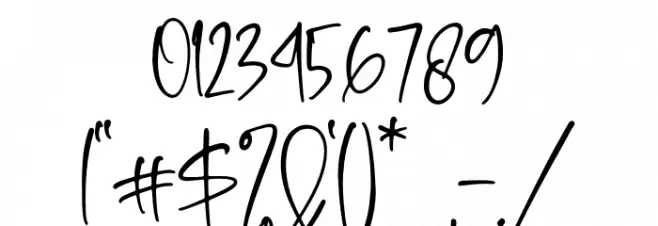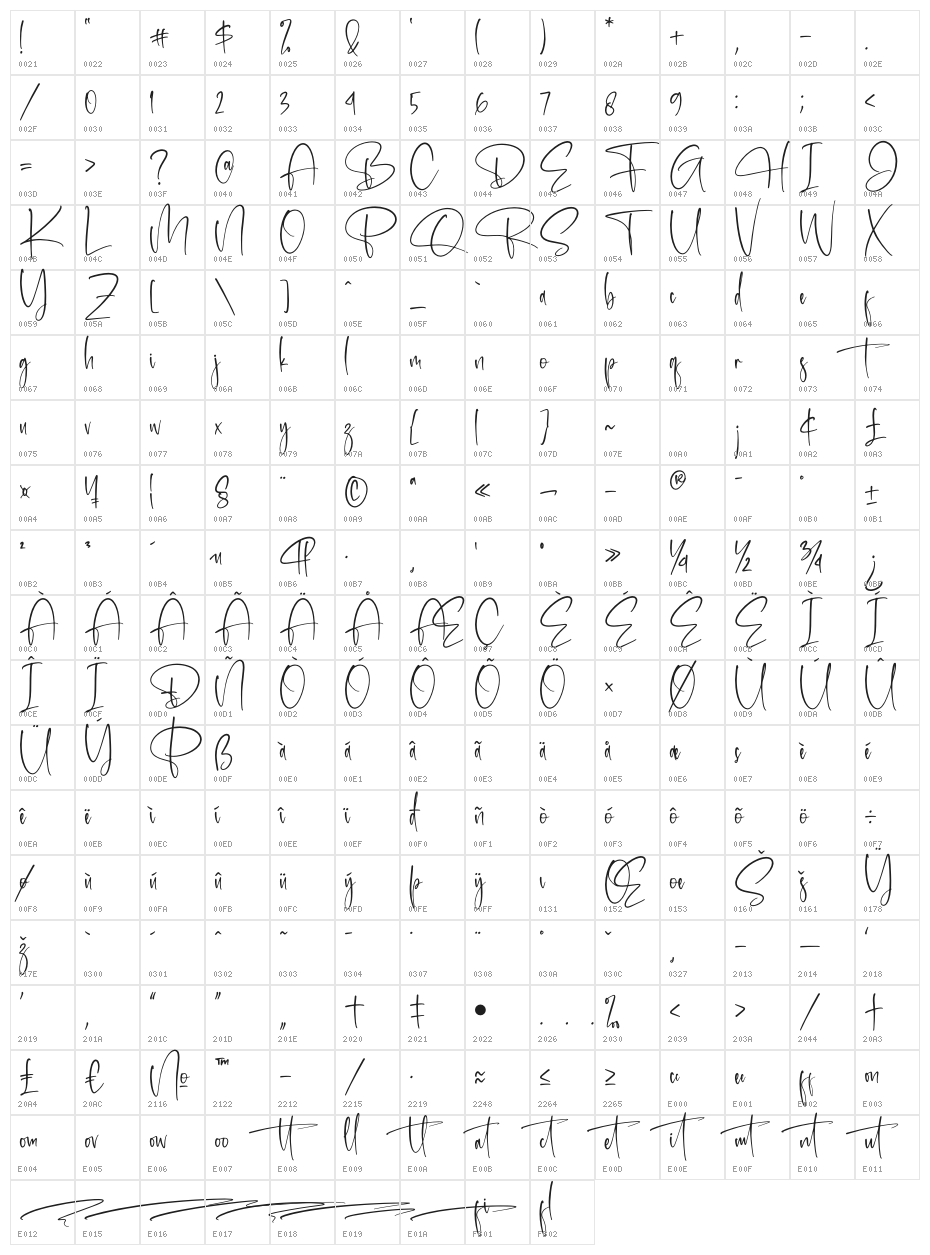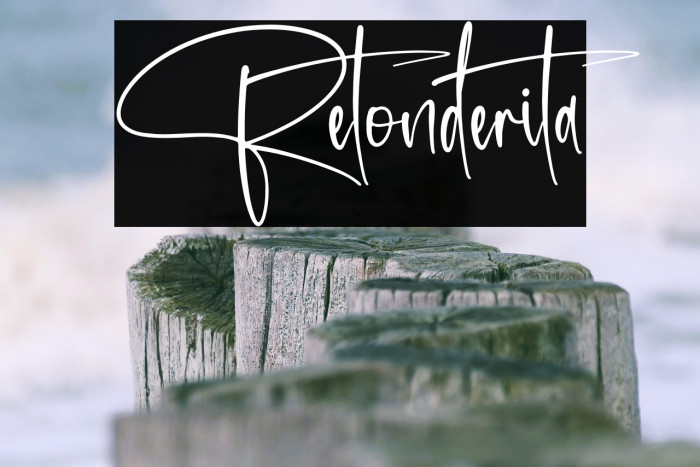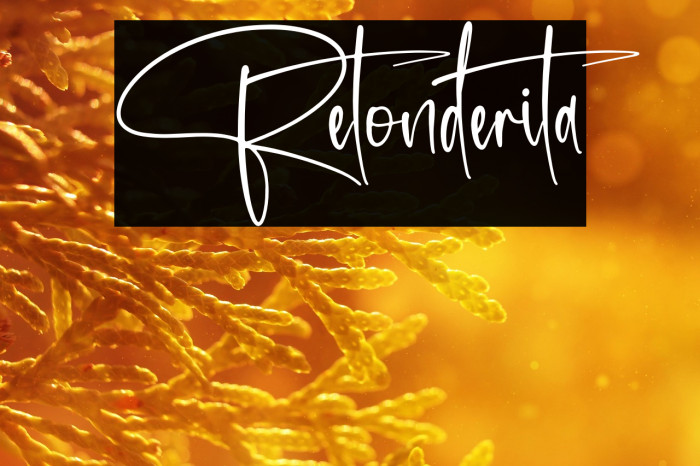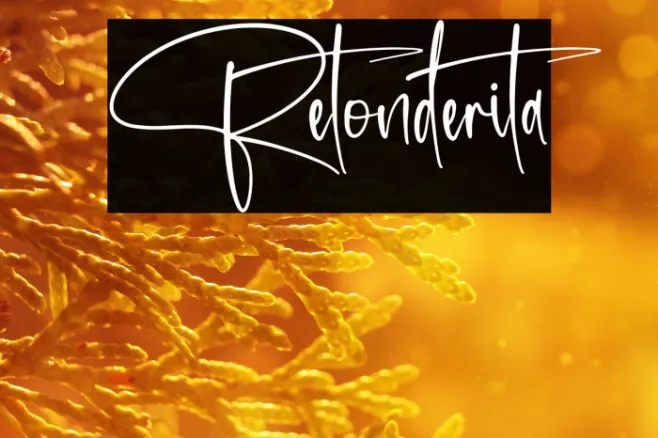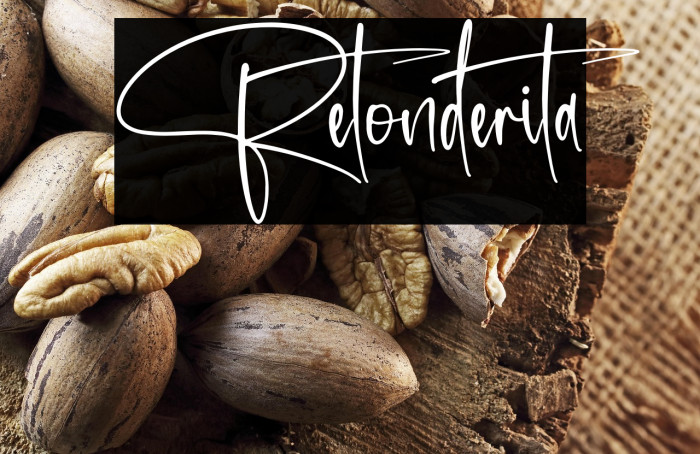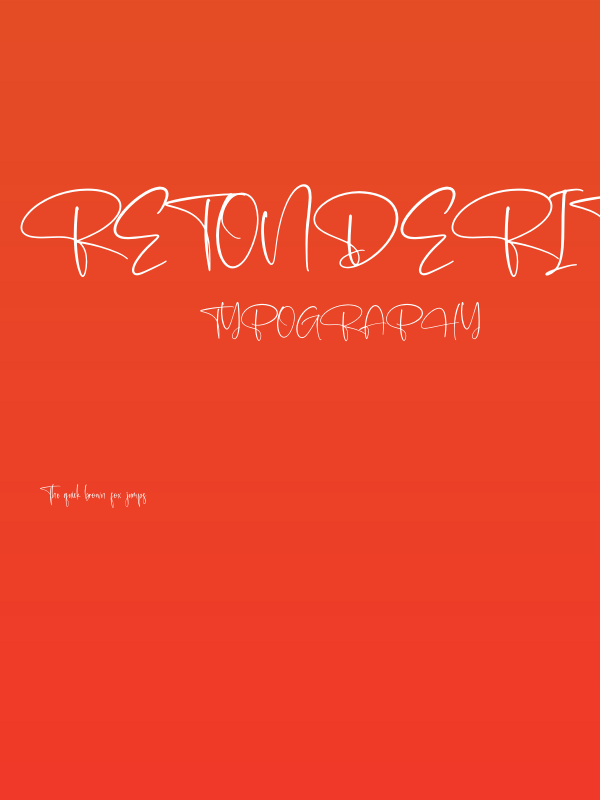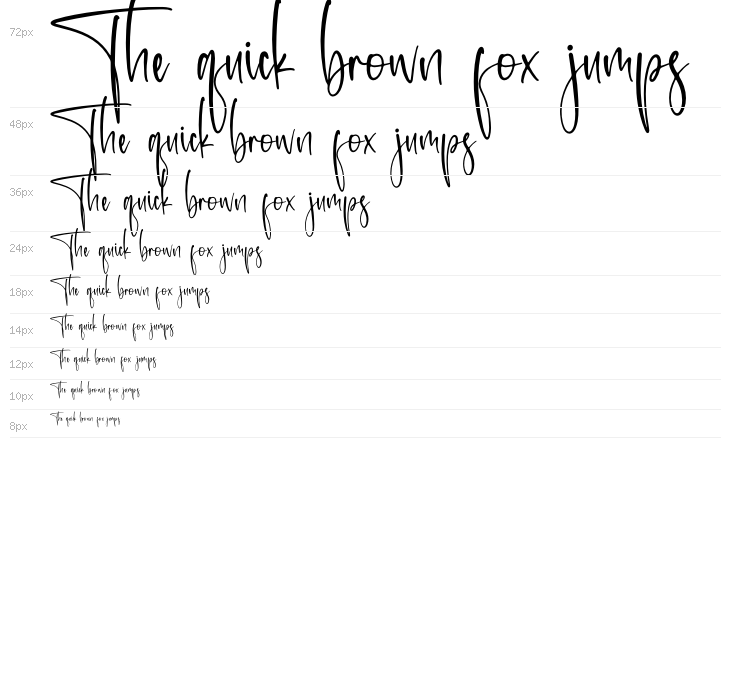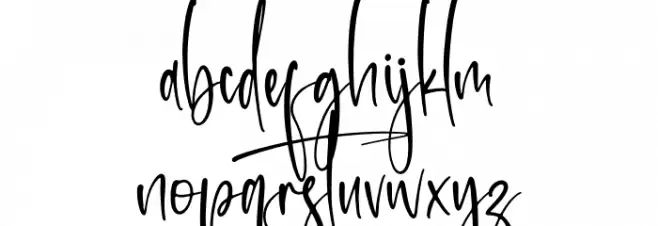
Retonderita Font
Retonderita Description
This font exhibits a lively and expressive handwritten style, characterized by its fluid and dynamic letterforms. The uppercase letters are bold and sweeping, with a playful yet sophisticated flair. The lowercase letters maintain a consistent flow, with some letters extending below the baseline, adding to the font's whimsical nature. Numbers and special characters are crafted with the same energetic strokes, ensuring a cohesive look across all elements. The overall appearance is both artistic and approachable, making it suitable for creative and informal applications.